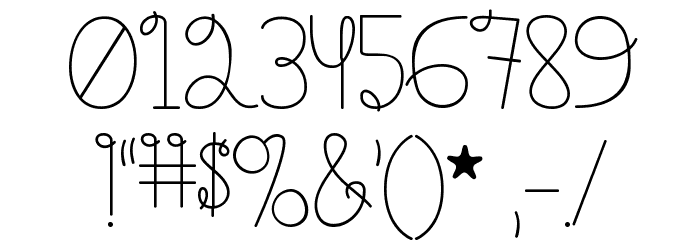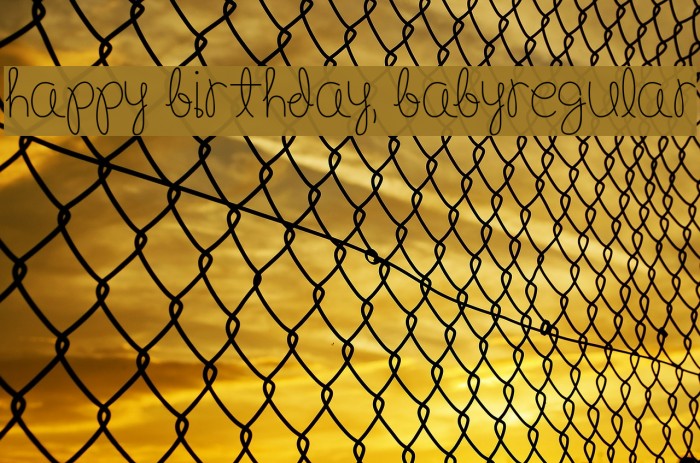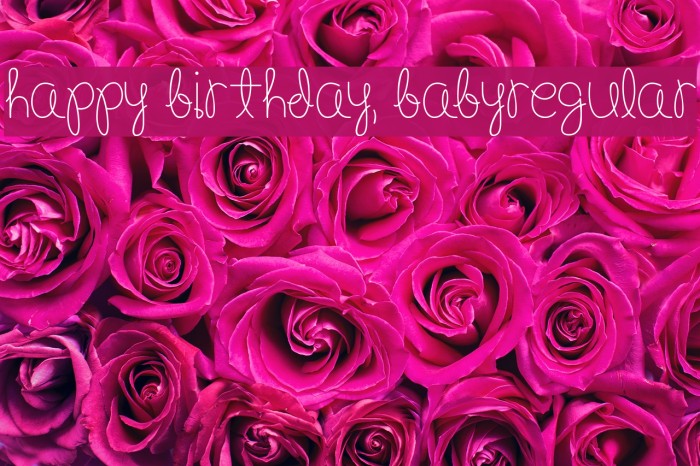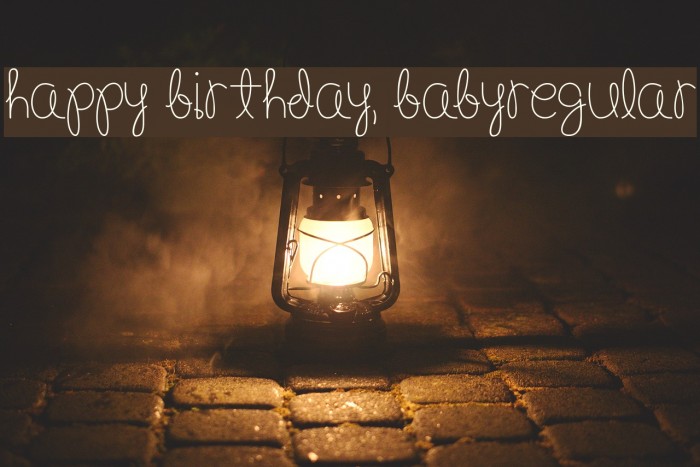
Happy Birthday, BabyRegular Font
This font features a whimsical and playful design, characterized by its thin, looping strokes and a hand-drawn aesthetic. The letters are uniquely crafted with a sense of movement and fluidity, giving each character a distinct personality. The uppercase and lowercase letters maintain a consistent style, with the lowercase letters exhibiting a slightly more exaggerated loop. Numbers and special characters are designed to match the playful nature of the alphabet, making this font ideal for creative and informal projects. The overall appearance is light and airy, with a touch of elegance that adds to its charm.
A whimsical, hand-drawn font with thin, looping strokes and a playful aesthetic.
- Proposed Projects: Ideal for greeting cards, children's books, playful branding, and creative invitations.
- Category: Handwritten
- Weight: Light
- Overall Style: Playful
- Use Case: Greeting cards, Invitations, Creative projects